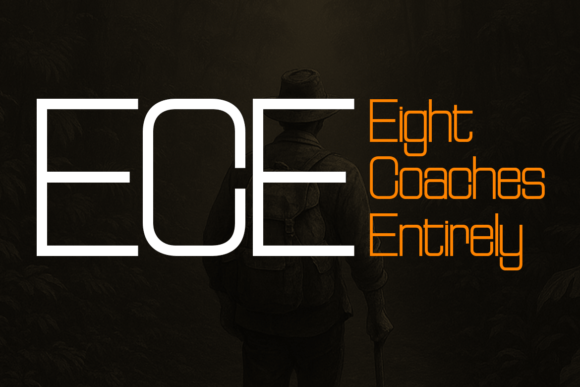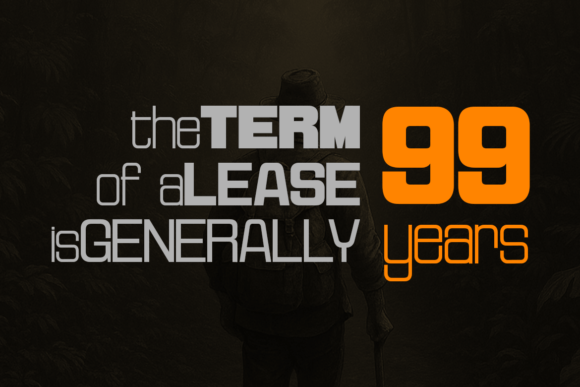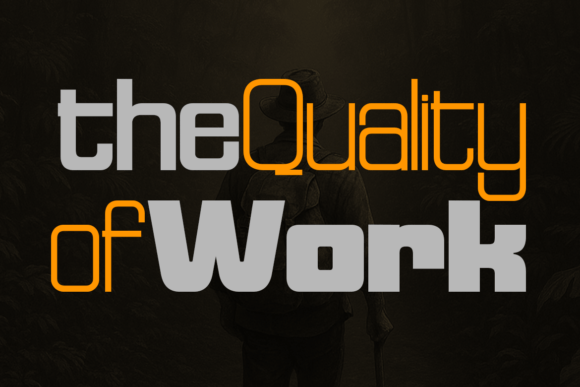
Introduction to Reflect of Strictly Font
You know that moment when you’re working on a creative project and you just can’t seem to find the right font to bring it all together? The design just feels flat, and you’re not sure what’s missing. That’s where the Reflect of Strictly Font comes in – a game-changing sans serif font that adds a touch of elegance and sophistication to any design.
As a valuable resource for designers, Reflect of Strictly Font offers a perfect balance between the familiar and the unexpected. With its unique blend of vintage charm and contemporary style, it’s no wonder why this font is a go-to choice for top fashion magazines, publications, and web pages. Whether you’re working on a branding project, creating a logo, or designing a poster, Reflect of Strictly Font is sure to make a lasting impression.
Key Features of Reflect of Strictly Font
- High-quality design resource ideal for creative projects, available as a free download.
- Reflect of Strictly Font features a transparent background, allowing for seamless integration into various design compositions.
- Includes a comprehensive character set, covering a wide range of languages and special characters.
- Features a unique, modern aesthetic that can elevate any design project, from logos to typography-based compositions.
- Designed to be highly legible, even at small font sizes, making it suitable for a variety of applications, including print and digital media.
Honest Review: Reflect of Strictly Font
I recently had the chance to work with the Reflect of Strictly Font, and I must say it was a pleasant surprise. As a designer, I’m always on the lookout for high-quality fonts that can elevate my creative projects. This font definitely delivers.
- ✨ High-quality design: The font is well-crafted and visually appealing, making it perfect for a variety of design projects.
- ✨ Transparent background: The transparent background option allows for seamless integration with other design elements.
- ⚠️ Limited customization options: While the font itself is great, I found that the customization options were somewhat limited, which might be a drawback for designers who like to fine-tune their designs.
Overall, I’m impressed with the Reflect of Strictly Font. It’s a great addition to any design resource library, and I would definitely recommend it to fellow designers. While it may have a few limitations, its high-quality design and free download make it a worthwhile resource for any creative project.
Reflect of Strictly Font
Introduction to Reflect of Strictly Font
Reflect of Strictly Font is a high-quality design resource that offers a unique and stylish touch to your creative project. This font is available for free download and features a transparent background, making it versatile for various design applications.
Tips for Getting the Most Out of Reflect of Strictly Font
Experiment with different font sizes, colors, and combinations to achieve the desired visual effect. Use Reflect of Strictly Font in conjunction with other design elements to create a cohesive and professional look.
Common Use Cases for Reflect of Strictly Font
Reflect of Strictly Font is suitable for various design projects, including logos, business cards, brochures, and social media graphics. Its unique style and high-quality design make it an ideal choice for creative professionals and designers.